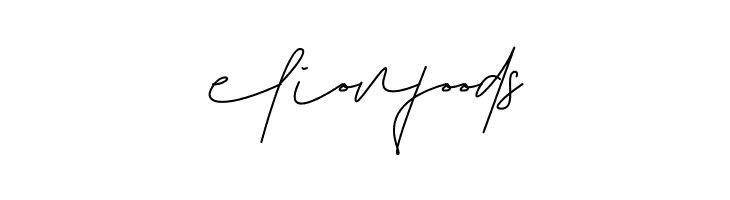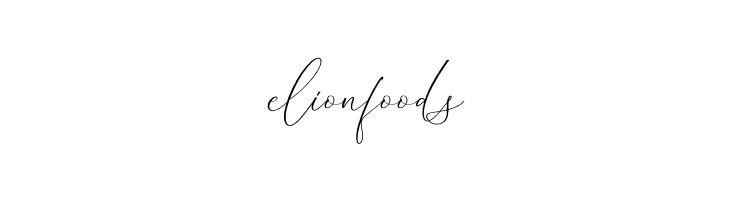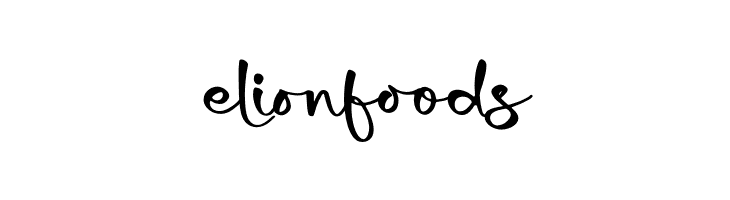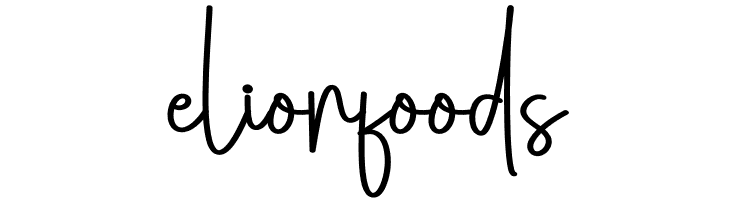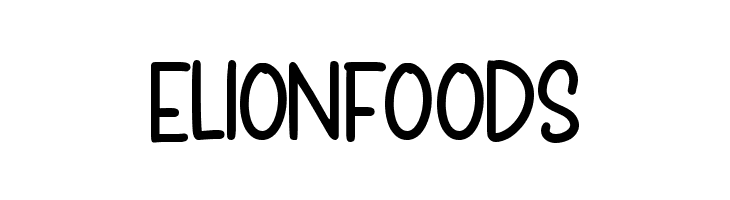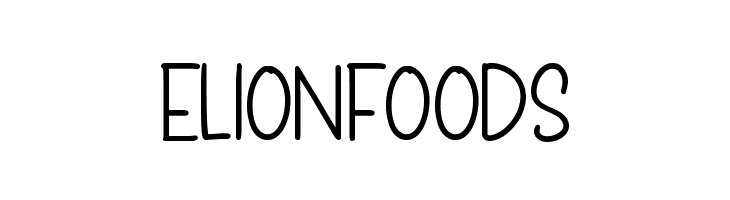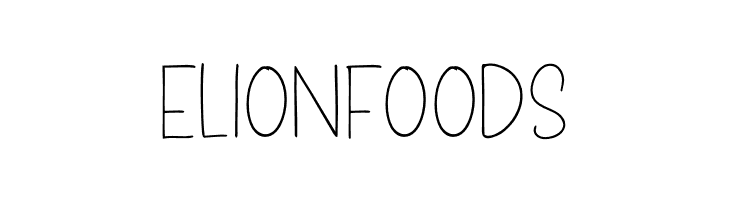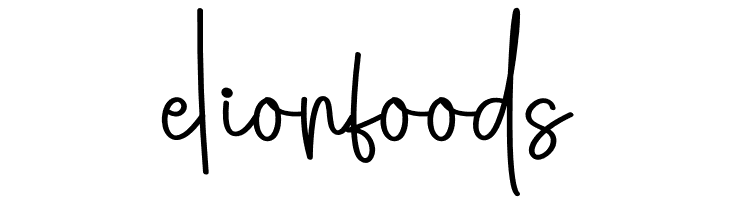
A playful handwritten font with rounded, casual letterforms.
Playful, bold handwritten sans-serif font.
Playful handwritten sans-serif font.
Thin, handwritten sans-serif font with a casual style.
Tall, narrow, handwritten script with playful, casual strokes.
A playful, handwritten font with tall, narrow letters and a slight slant.
A cursive, handwritten font with a fluid and elegant style.
An elegant and flowing script font with delicate, graceful strokes.
A playful, cursive font with artistic, handwritten characteristics.